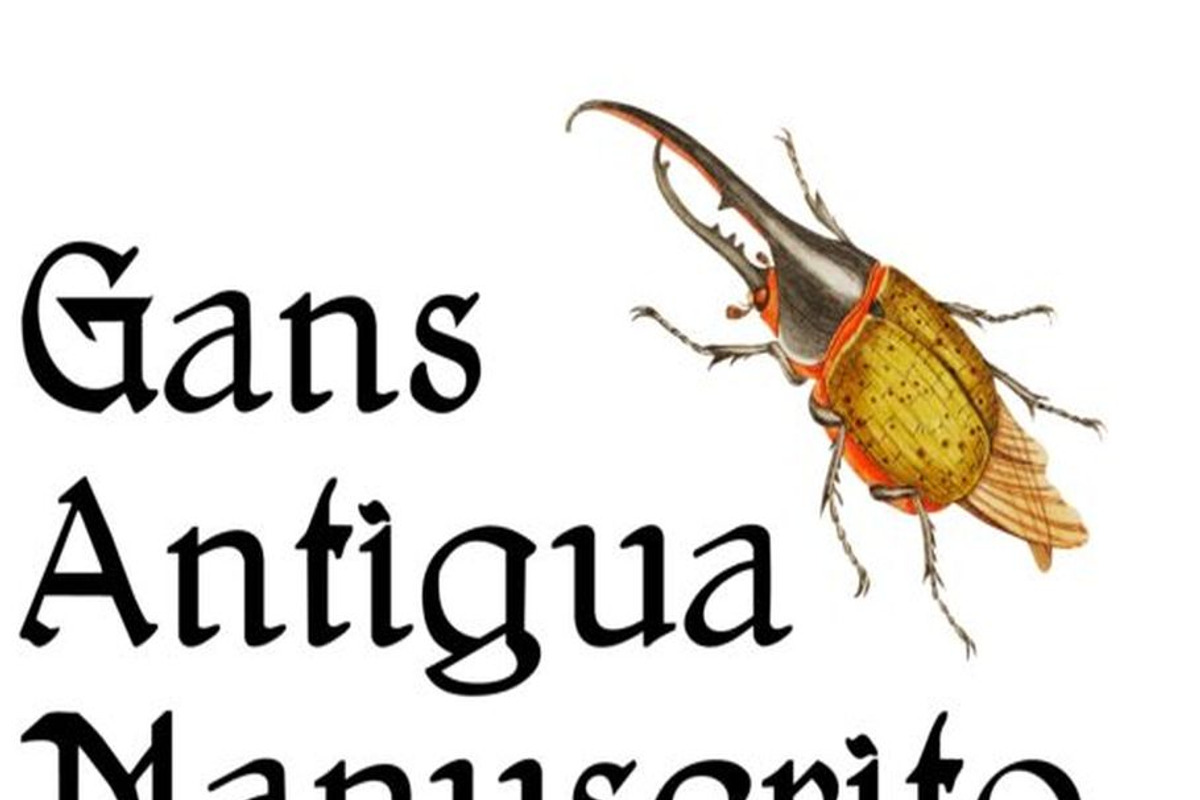
Gans Antigua Manuscrito PACK
Gans Antigua Manuscrito is a revival font by Intellecta Design. researched at the rare catalogue from the extinct Fundicion Richard Gans, from Madrid. See also other font families inspired by Gans' original typefaces
Gans Antigua Manuscrito is a flowing handwritten font, described by an elegant touch, perfect for your favorite projects. Fall in love with its incredibly distinct and timeless style and use it to create spectacular designs!